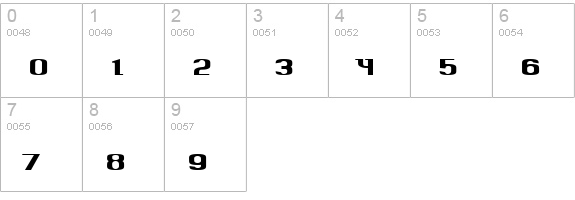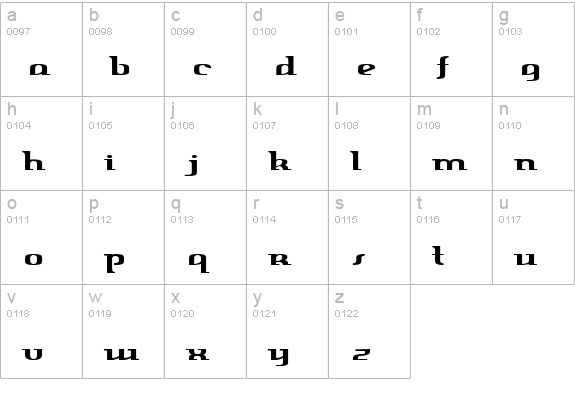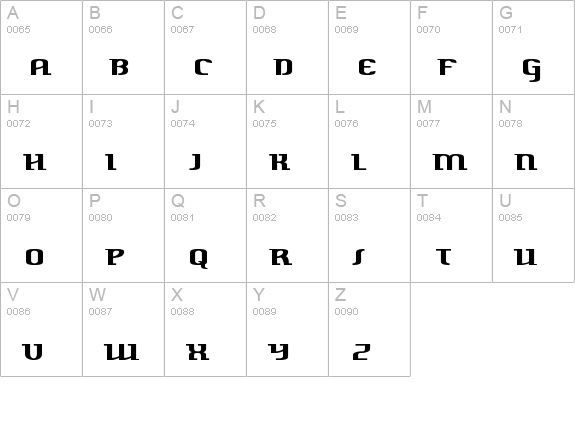
Harper Font Details
Introducing Harper font, a modern and elegant typeface that effortlessly captures attention with its sleek lines and refined curves. This versatile font is perfect for a wide range of design projects, from branding and logo design to editorial layouts and web design. With its clean and legible appearance, Harper font adds a touch of sophistication to any design. Its balanced letterforms and generous spacing ensure optimal readability, making it suitable for both print and digital mediums. One of the standout features of Harper font is its versatility. Whether you're aiming for a bold and impactful look or a more subtle and refined aesthetic, this font has you covered. Its diverse range of weights and styles allows for endless creative possibilities, ensuring that your designs will always stand out. What makes Harper font even more enticing is the fact that it is freely available to download at FontsMarket.com. This means that you can access this exceptional font without any cost, making it an ideal choice for both personal and commercial projects. So, whether you're a designer looking to elevate your typography game or a business owner in need of a font that exudes professionalism and style, Harper font is the perfect choice. With its effortless elegance and free availability, it's a font that will undoubtedly leave a lasting impression.